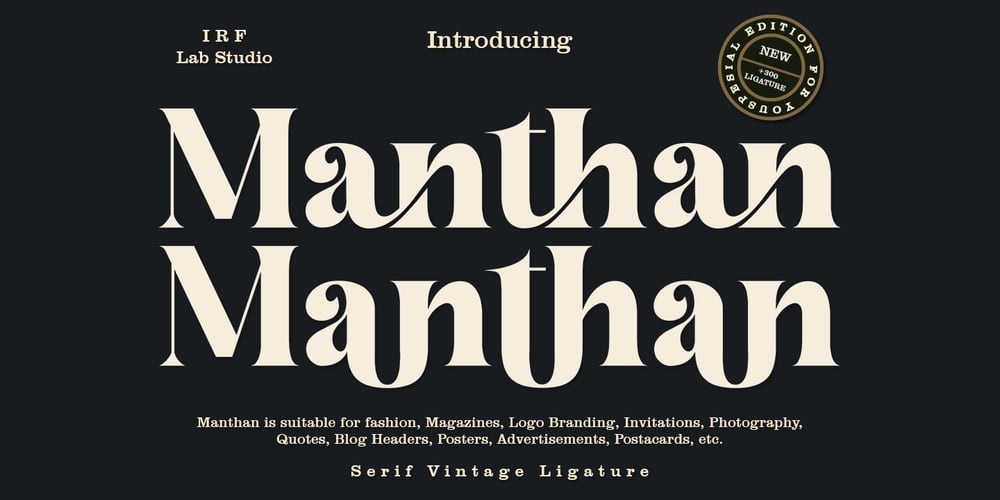
Manthan Font Family was designed by M Irvan Syouqi S and published by IRF Lab Studio. Manthan contains 4 styles and family package options. Introducing Manthan – A modern classic serif font, perfect for creating elegant and classy designs.Manthan is a serif font with an elegant and classy look. Each Manthan glyph font is designed with natural and beautiful curves. Manthan Typography can help you complete various projects such as luxury brand logos, journals, business cards, titles, products, social media posts, web and much more. If you’re involved in a project that requires beautiful, professional writing, the Manthan font is perfect to help you get it done.